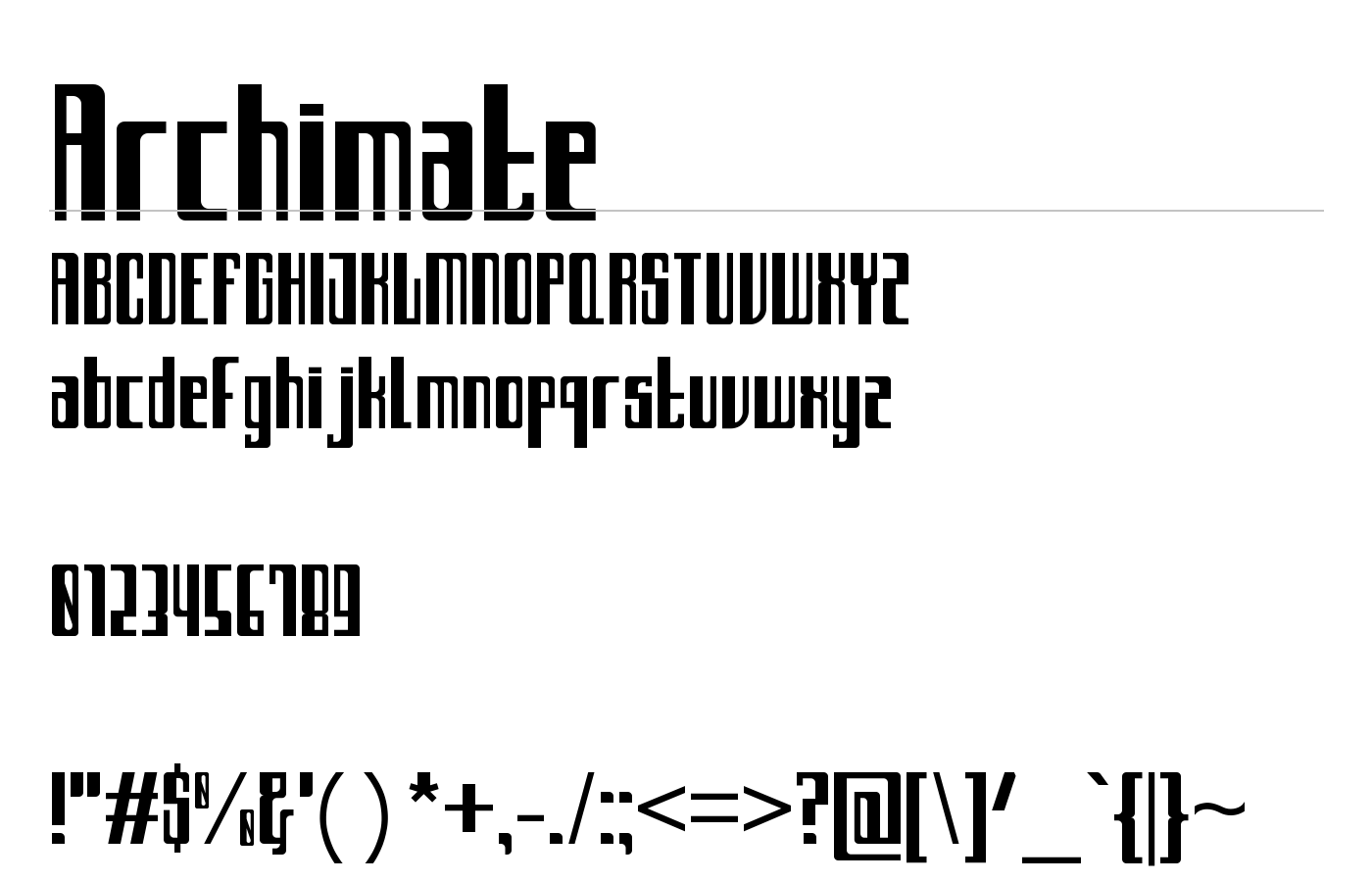
Archimate is a tall, condensed sans serif font with a distinct geometric and modern style. Its bold, blocky letterforms with minimal contrast and sharp edges create a striking, architectural feel, making it ideal for headlines, posters, and branding projects where a strong, futuristic look is desired. This font works well in creative, tech, and urban-themed designs that need a unique, impactful presence.
Archimate Font
About Archimate Font
| Font family | Archimate Font |
| Designer | Typeface©(KongFont).2020. |